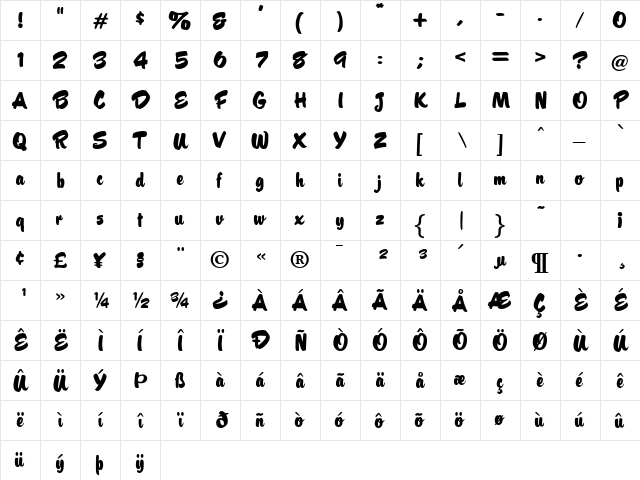
Huston Regular
Design Context for Huston Typeface
Huston is a composed and adaptable typeface that performs quietly and consistently across a wide range of design contexts.